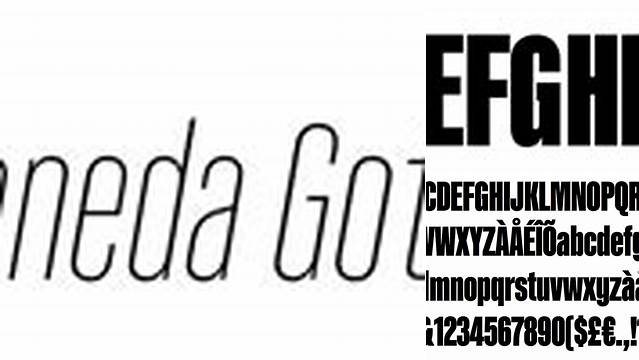
Kaneda Gothic font, guys, it's like the superhero of typography, swooping in to save your designs with its bold, futuristic vibes. Think of it as the font equivalent of a sleek, high-tech cityscape β all sharp angles and confident curves. If you're aiming for a design that screams modern and impactful, Kaneda Gothic is your go-to font. This font isn't just about looking cool; it's about making a statement. It's the kind of font that grabs attention, whether it's on a poster, a website, or even a logo. Its strong presence and unique character make it a favorite among designers who want their work to stand out from the crowd. The beauty of Kaneda Gothic lies in its versatility. While it's undeniably modern, it also carries a timeless quality that makes it suitable for a wide range of applications. Imagine using it for the title of a science fiction novel, the branding of a tech startup, or even the headings on a trendy fashion blog. The possibilities are endless! But what exactly makes Kaneda Gothic so special? Is it the sharp, angular lines that give it a futuristic edge? Or maybe it's the subtle curves that add a touch of elegance? Whatever the secret ingredient, one thing is for sure: Kaneda Gothic has a way of transforming any design into a visual masterpiece. Now, you might be thinking, "Okay, this font sounds amazing, but is it going to cost me a fortune?" Fear not, design enthusiasts! One of the best things about Kaneda Gothic is that it's often available for free download. Yes, you heard that right! You can get your hands on this incredible font without breaking the bank. In this article, we're going to dive deep into the world of Kaneda Gothic, exploring its origins, its unique characteristics, and how you can use it to elevate your designs. We'll also guide you through the process of finding and downloading Kaneda Gothic for free, ensuring you have everything you need to unleash its power in your projects. So, buckle up and get ready to discover the magic of Kaneda Gothic! Whether you're a seasoned designer or just starting out, this font is sure to become a valuable addition to your creative toolkit. Let's explore why Kaneda Gothic is more than just a font β it's a statement.
When you talk about Kaneda Gothic font, you're really talking about a typeface that's got a serious personality. It's not your run-of-the-mill font; it's got a unique vibe that sets it apart from the crowd. So, what exactly are these distinctive features that make Kaneda Gothic so special? Well, first off, let's talk about its boldness. This font isn't shy; it's got a strong presence that commands attention. The thick strokes and solid letterforms give it a sense of power and authority, making it perfect for headlines, titles, and anything else you want to stand out. But it's not just about being bold; Kaneda Gothic also has a certain futuristic edge. The sharp angles and clean lines give it a modern, almost sci-fi feel. Imagine the opening credits of a cyberpunk movie β that's the kind of vibe Kaneda Gothic brings to the table. It's the font of choice for anything that needs to look cutting-edge and technologically advanced. Now, don't go thinking that Kaneda Gothic is all about being sharp and angular. It's also got a touch of elegance to it. The subtle curves and refined details add a touch of sophistication, preventing it from looking too harsh or aggressive. This balance between boldness and elegance is what makes Kaneda Gothic so versatile. It can be used in a wide range of designs, from posters and websites to logos and branding materials. Another key feature of Kaneda Gothic is its legibility. Despite its unique style, it's still easy to read, even at smaller sizes. This is crucial for any font, as you don't want your message to get lost in the design. Kaneda Gothic strikes the perfect balance between style and readability, ensuring that your text looks great and is easy to understand. And let's not forget about the overall impact of Kaneda Gothic. This font has a way of transforming any design into something special. It adds a touch of personality and character, making your work stand out from the sea of generic typography. Whether you're designing a website, a poster, or a logo, Kaneda Gothic can help you create a visual masterpiece that truly captures the essence of your message. Think of it this way: Kaneda Gothic is like the cool kid in the font family. It's got the style, the confidence, and the versatility to handle any design challenge you throw its way. So, if you're looking for a font that's both bold and elegant, futuristic and timeless, look no further than Kaneda Gothic. It's the font that's sure to make a statement.
So, you've got Kaneda Gothic font installed and you're ready to rock. But how do you actually use it effectively in your designs? This font has a strong personality, so it's important to use it wisely to get the best results. Here are some tips to help you make the most of Kaneda Gothic: First off, think about where Kaneda Gothic really shines. This font is all about making a statement, so it's perfect for headlines, titles, and logos. It's got a bold, futuristic vibe that grabs attention, so use it in places where you want to make a big impact. However, because of its strong personality, Kaneda Gothic might not be the best choice for body text. It can be a bit too overpowering for long paragraphs of text, making it difficult to read. For body text, you're better off choosing a simpler, more neutral font that's easy on the eyes. Next up, consider pairing Kaneda Gothic with other fonts. Because it's such a distinctive font, Kaneda Gothic works best when paired with something that complements it without competing for attention. A classic sans-serif font like Helvetica or Arial can be a great choice for body text, as it provides a clean, neutral contrast to Kaneda Gothic's boldness. You could also try pairing it with a simple serif font for a more elegant look. The key is to choose a font that doesn't clash with Kaneda Gothic's style but rather enhances it. Think about the overall tone and style of your design. Kaneda Gothic has a modern, futuristic feel, so it's best suited for designs that have a similar aesthetic. It's perfect for tech startups, sci-fi projects, and anything that needs to look cutting-edge. However, it might not be the best choice for more traditional or classic designs. Consider the context in which you're using the font and make sure it fits with the overall style. Pay attention to the size and spacing of the font. Kaneda Gothic is a bold font, so it can take up a lot of space. Be careful not to overcrowd your design by using it too large or with too little spacing. Experiment with different sizes and spacing options to find the perfect balance. You might also want to adjust the letter spacing (tracking) and line height (leading) to improve readability and visual appeal. Don't be afraid to experiment with different weights and styles of Kaneda Gothic. Many versions of the font come in different weights, such as bold, light, and regular. You can also find variations with different styles, such as italic or condensed. Experimenting with these different options can help you create a more dynamic and visually interesting design. Finally, remember to use Kaneda Gothic sparingly. Because it's such a bold and distinctive font, it's easy to overdo it. Use it strategically in key areas of your design to create impact, but avoid using it everywhere. A little bit of Kaneda Gothic can go a long way! So, there you have it! Some tips for using Kaneda Gothic font effectively in your designs. By following these guidelines, you can unleash the power of this awesome font and create designs that are both visually stunning and highly effective.